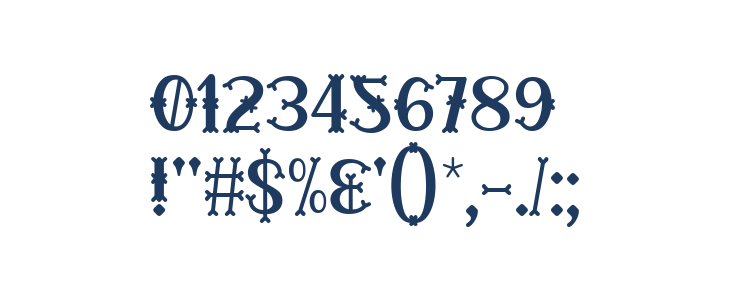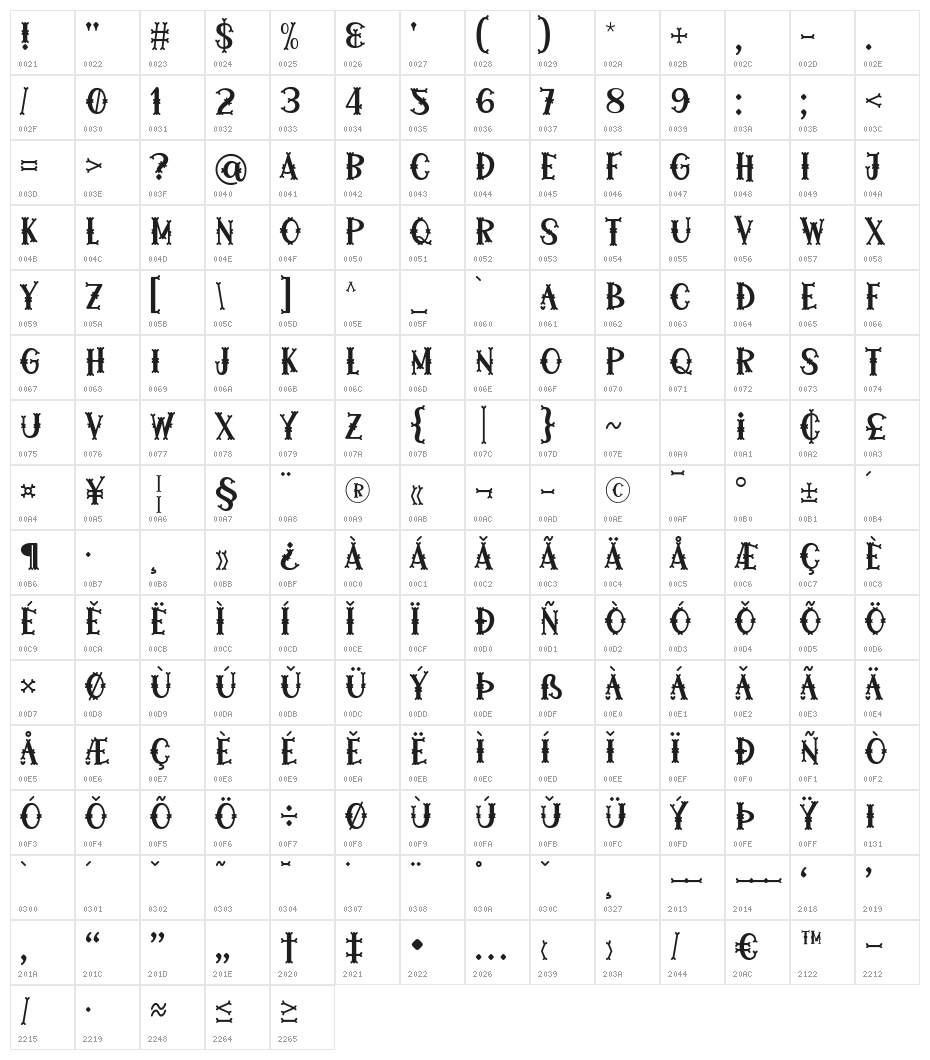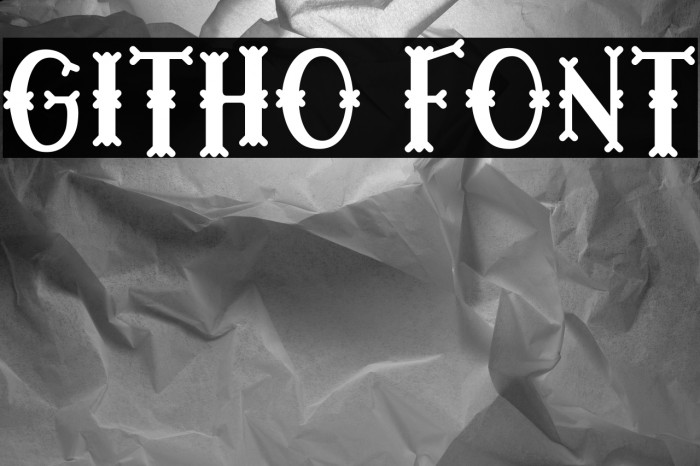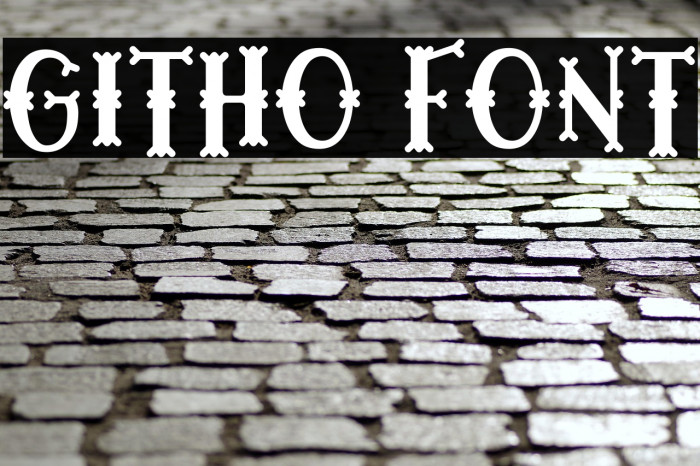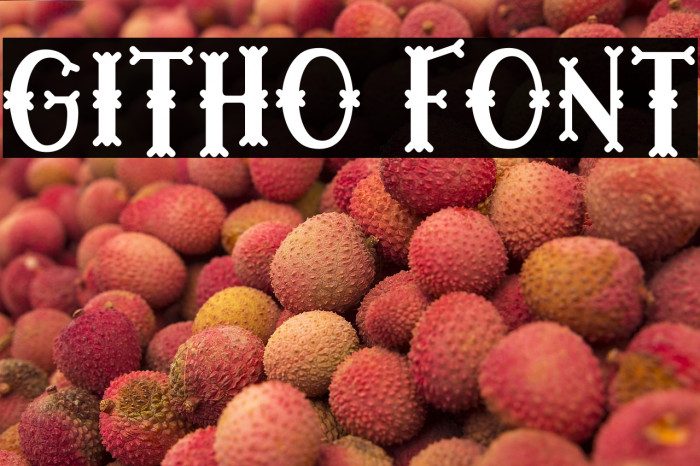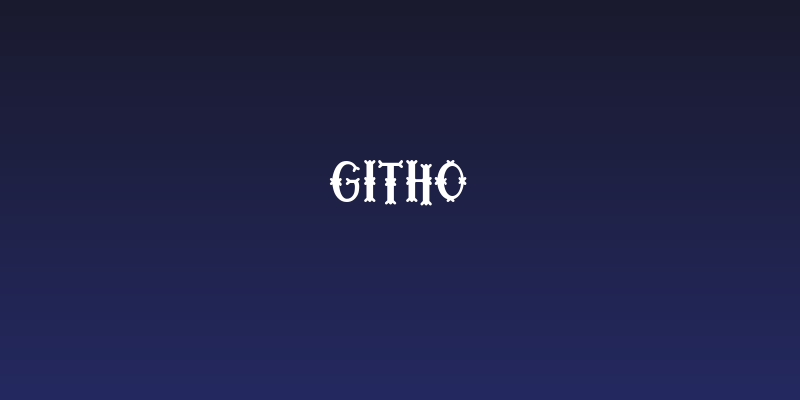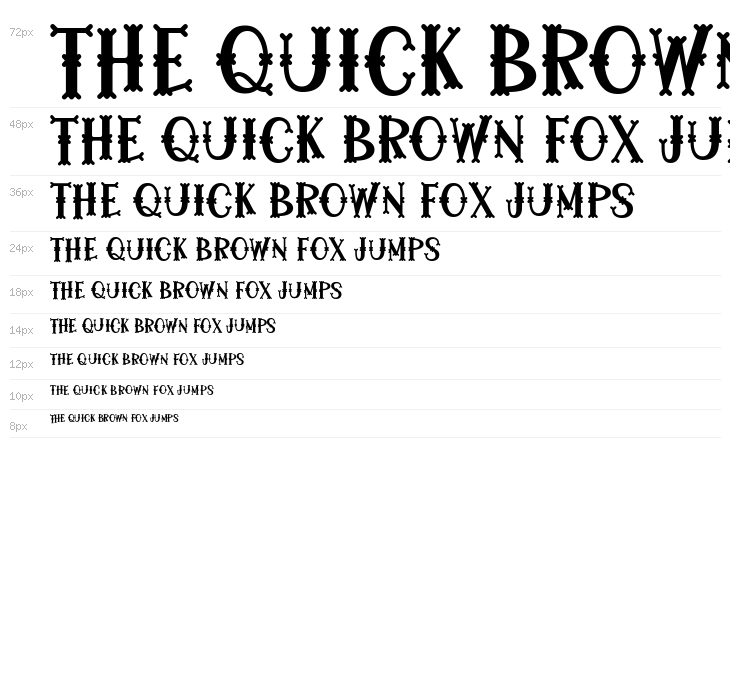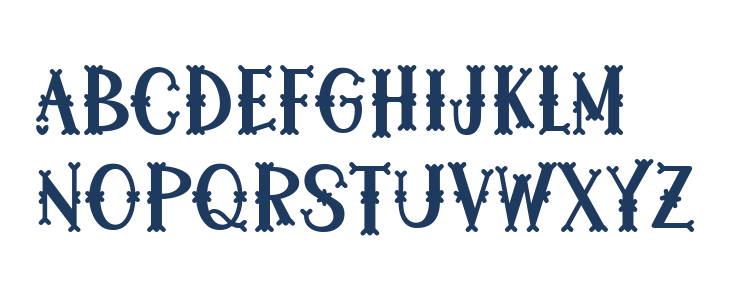
Githo Font
Githo Description
This font features a unique and decorative style with intricate details on each character. The letters are adorned with small, pointed serifs and embellishments that give it a distinct, ornamental appearance. The overall design is bold and eye-catching, making it suitable for creative and artistic projects. The numbers and special characters maintain the same decorative elements, ensuring consistency throughout the typeface. This font is ideal for projects that require a touch of elegance and flair, such as invitations, posters, and branding materials.
| Use Case | Headlines, Logos, Artistic projects |
| Proposed Projects | Ideal for invitations, posters, branding materials, and artistic projects requiring an elegant touch. |